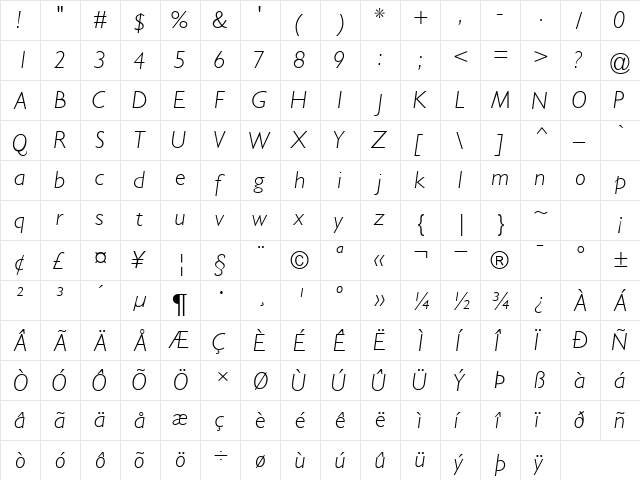
GimletLightSSK Italic Font Preview
Design Context for GimletLightSSK Typeface
GimletLightSSK takes a measured approach to typography — its balanced proportions and neutral character make it a reliable workhorse for both digital and print work. The slanted form adds forward momentum and visual energy. The delicate stroke weight brings airiness and refinement to layouts.
Pro Tip: Try GimletLightSSK for annotation and caption copy alongside an upright companion — the contrast in angle creates a dynamic but ordered typographic system.